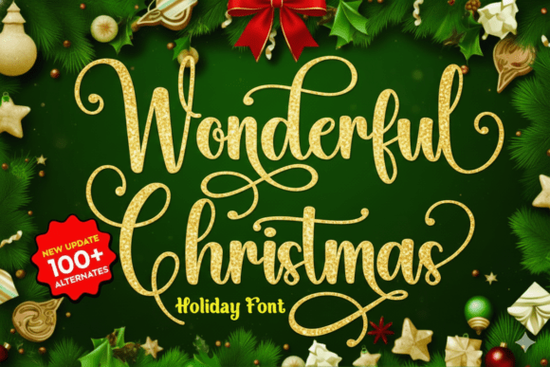
If you're looking for a Christmas font that works beyond the holiday season, Wonderful Christmas Font might be exactly what you need. It has an elegant, handwritten feel that suits everyday projects too – from wedding invitations to greeting cards and even logos. The best part? It's PUA encoded, so you can easily access all those lovely swashes and alternate characters.
Is this font good for wedding invitations and formal stationery?
Yes. The font's natural curves and subtle swashes give it a refined, romantic look. Many designers use it for save-the-dates, thank-you cards, and place cards. Because it's a readable script, it won't overwhelm the layout. You can pair it with a simple sans-serif like School Lovers for contrast, or let it stand alone on minimalist invites.
Which projects benefit most from this handwritten style?
- Greeting cards – both Christmas and all-occasion cards look personal and warm.
- Logos & branding – small businesses like bakeries, florists, or wedding planners can use it for a friendly, handmade identity.
- T-shirt and mug designs – print-on-demand sellers find that script fonts with swashes sell well for holiday items.
- Quotes and wall art – the elegant swirls make motivational quotes feel more special.
Many print-on-demand sellers pair this font with simple graphics. One common approach is to use the font for the main text and add a subtle ornament from the same swash set. That keeps the design clean but elevated.
What makes this different from other script fonts?
Unlike many free script fonts, Wonderful Christmas Font includes a generous set of ligatures and alternate characters. This means you can avoid the “same letter” look that often makes scripts feel repetitive. The letters flow naturally, almost like real handwriting. Beginners appreciate the PUA encoding – no need to install extra software to use the special characters.
What about pairing fonts – any recommendations?
Here's a simple combo that works for many projects:
- Wonderful Christmas Font for headlines or short phrases (size 24–36 pt).
- A clean sans-serif like Open Sans or Lato for body text (size 12–14 pt).
- Use a light grey or gold colour for the script, and a dark grey for the sans.
This keeps the focus on the elegant script without cluttering the design. For a more playful look, you could pair it with School Lovers (both are script, but one is more formal and the other is casual) – just use them in different sizes or colours to avoid confusion.